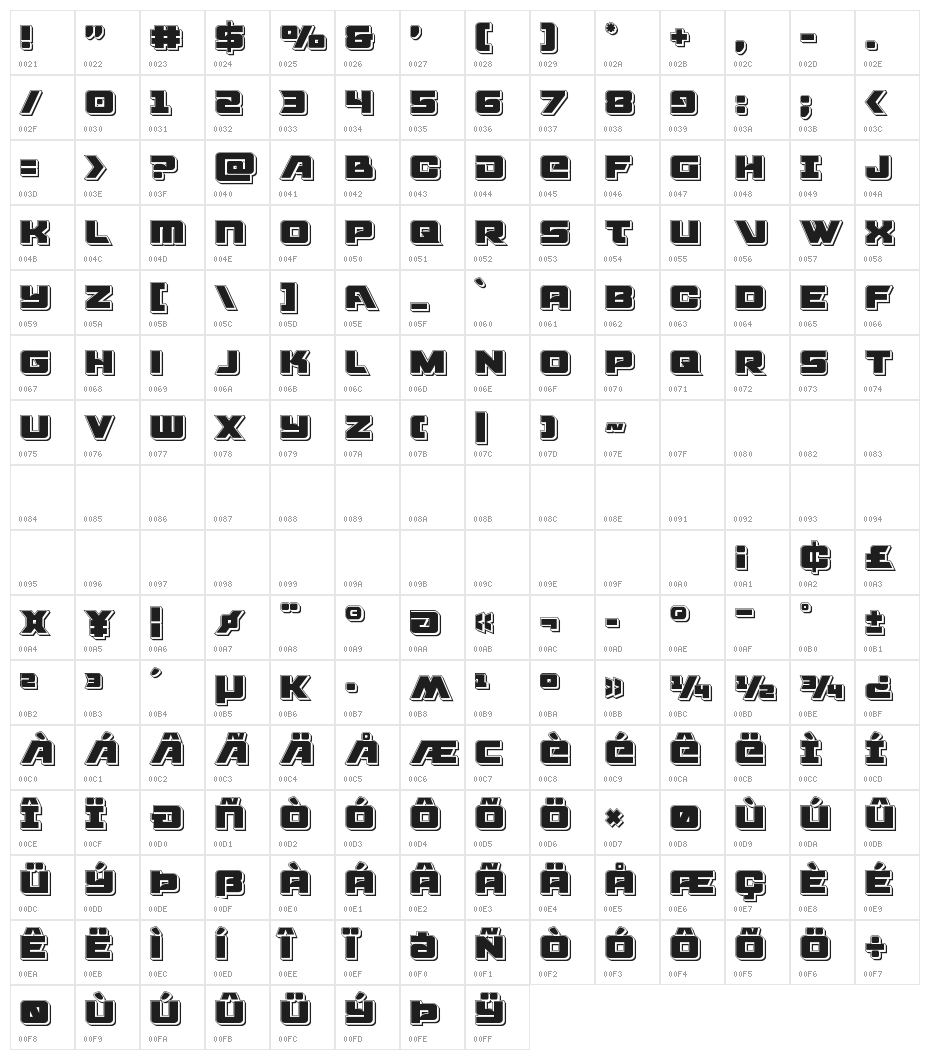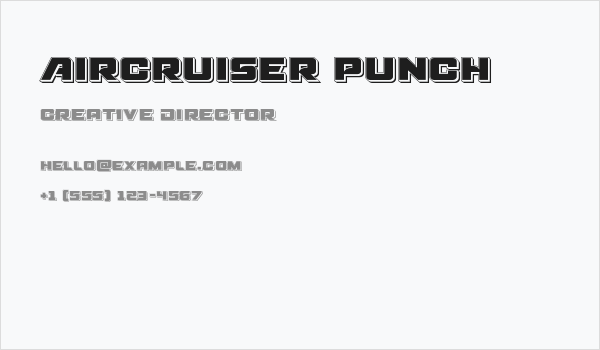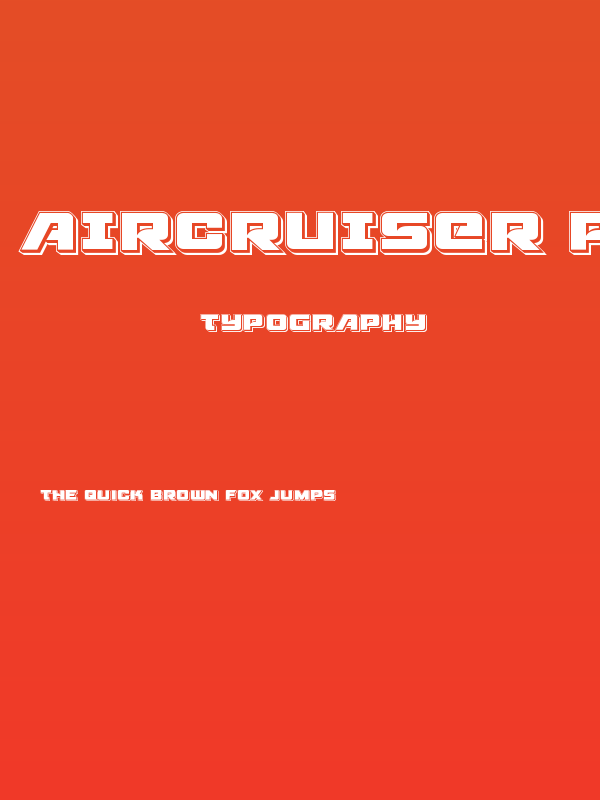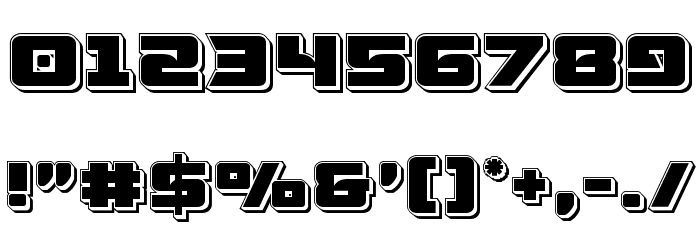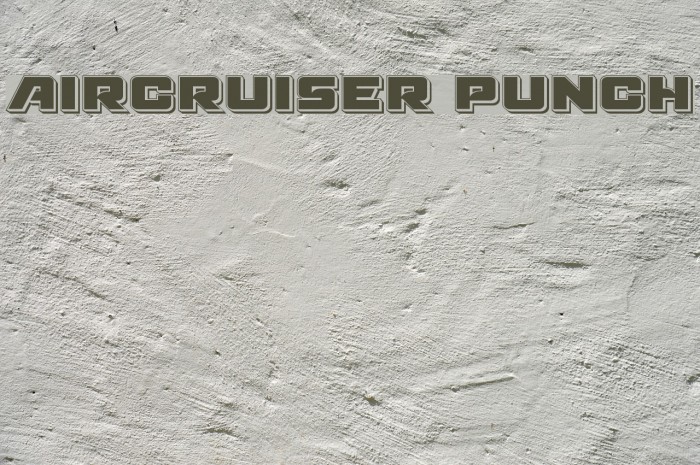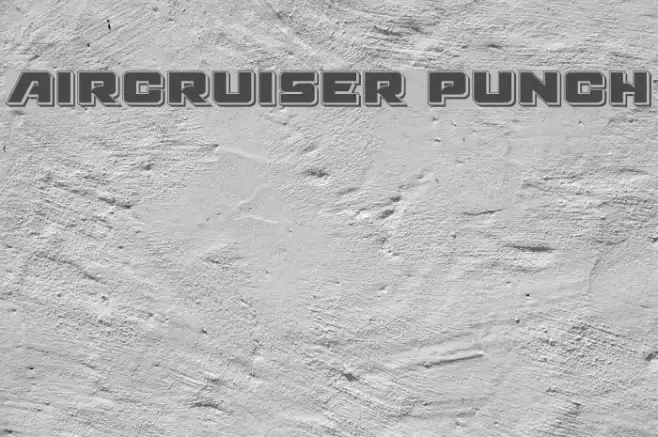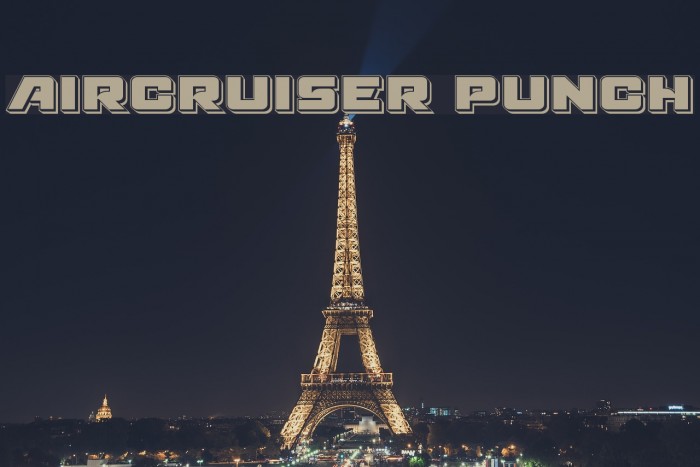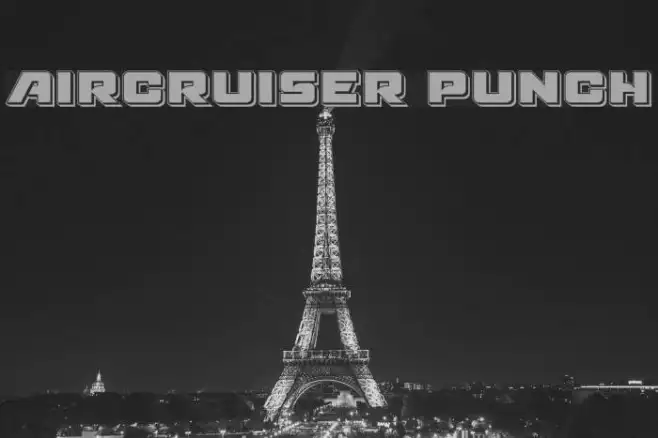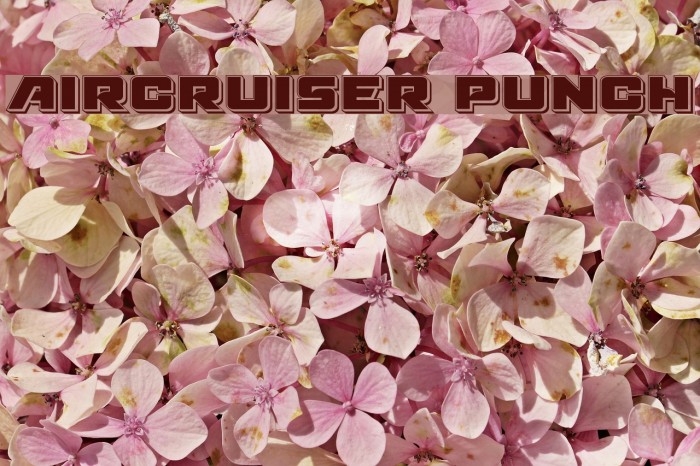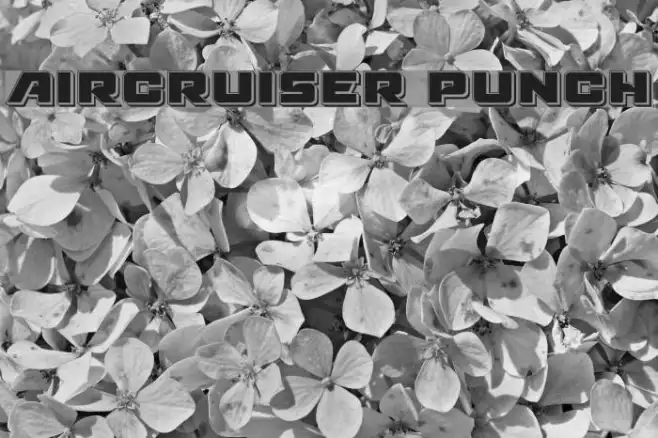
Aircruiser Punch Font
Aircruiser Punch Description
This bold, decorative font features a unique, futuristic design with a strong 3D effect. The characters are outlined with a thick border, creating a striking visual impact. The uppercase letters are angular and geometric, while the lowercase letters maintain the same bold style, ensuring consistency across the typeface. The numbers and special characters are equally bold, making them stand out. This font's distinct style is perfect for projects that require a modern and eye-catching look.
| Proposed Projects | Ideal for sci-fi themed designs, video game titles, posters, and branding that requires a modern and bold aesthetic. |